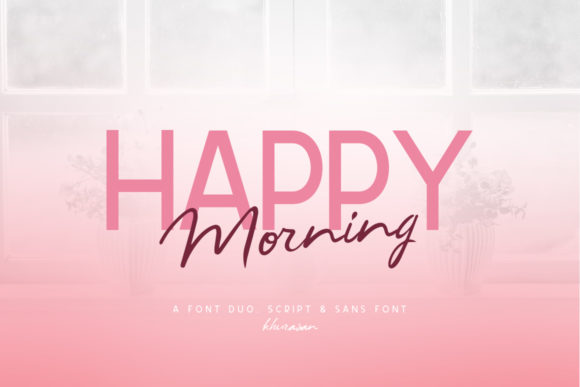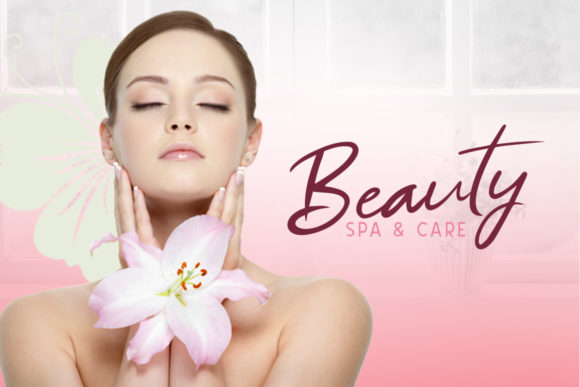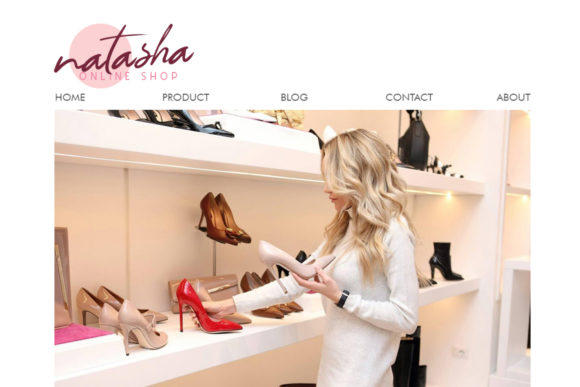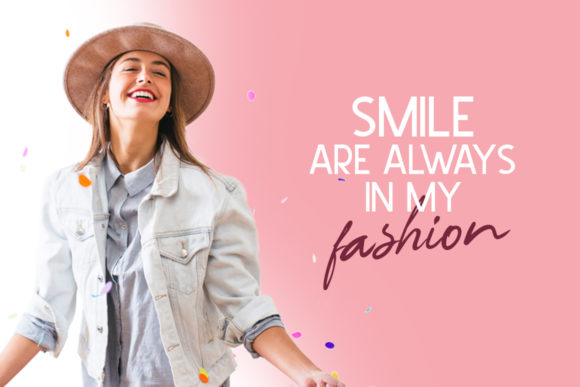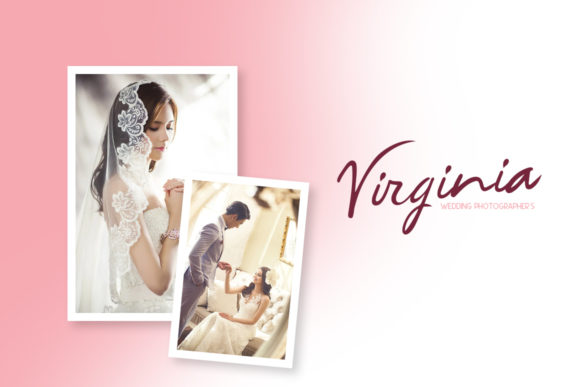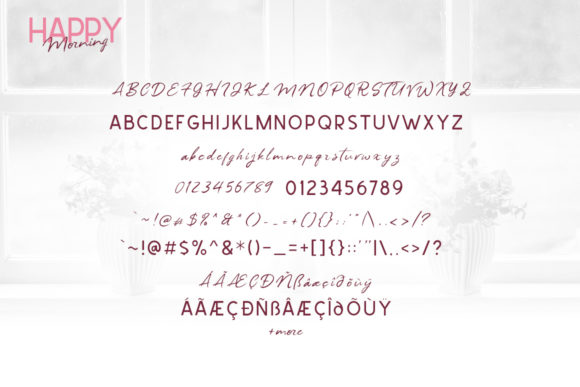
Happy Morning Font
About Happy Morning Font
Happy Morning duo is a match made in heaven. This font simplifies elegance into one truly outstanding handwritten font.